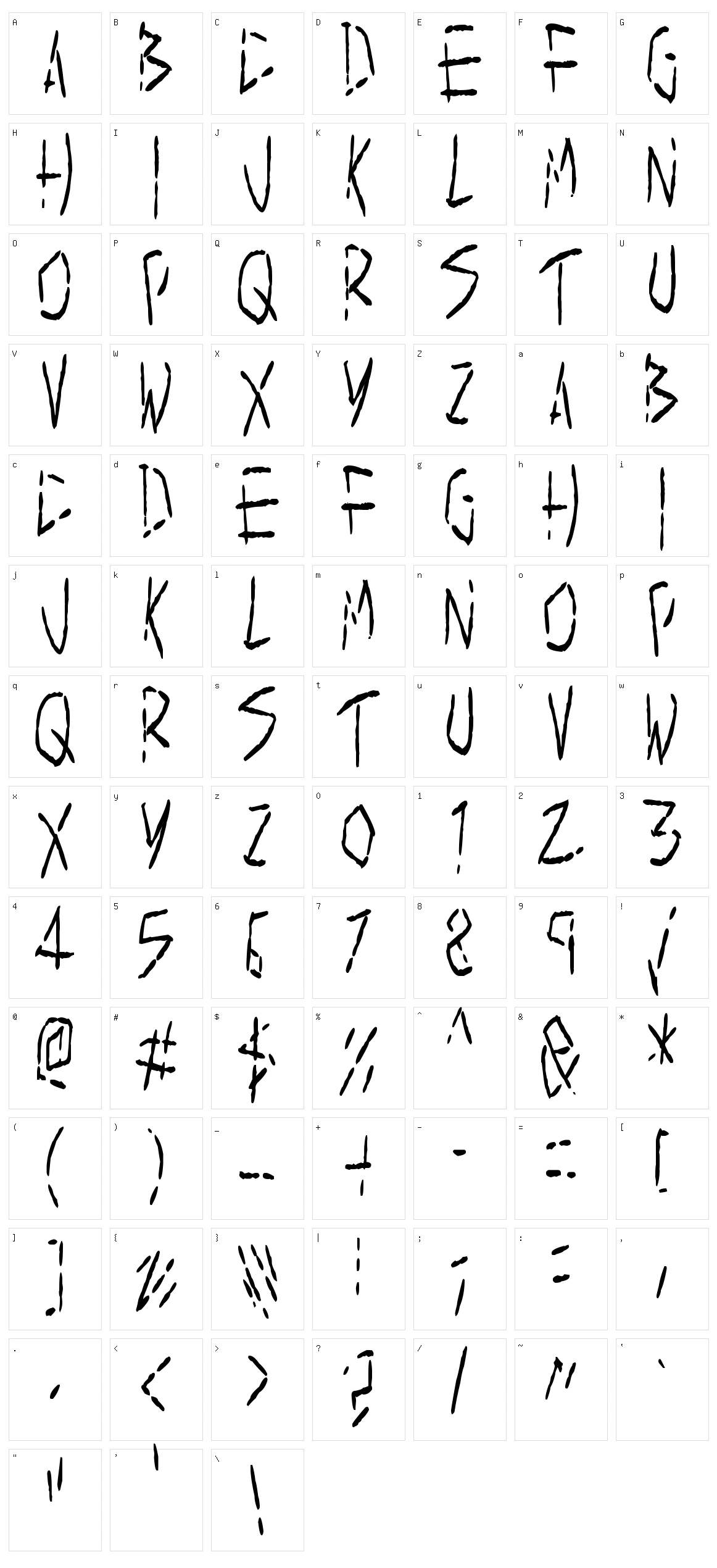
The free font Slice is carefully designed by Hawtpixel, showcasing a thoughtful balance of creativity and usability and falls under the Horror font style. When you download the ZIP file, it contains only 103.7 KB of font files, making it lightweight and quick to download. Please review the license details below to understand permitted usage and distribution rights. If license information is not available, we recommend using this font for personal projects only or contacting the author directly for commercial usage permissions.